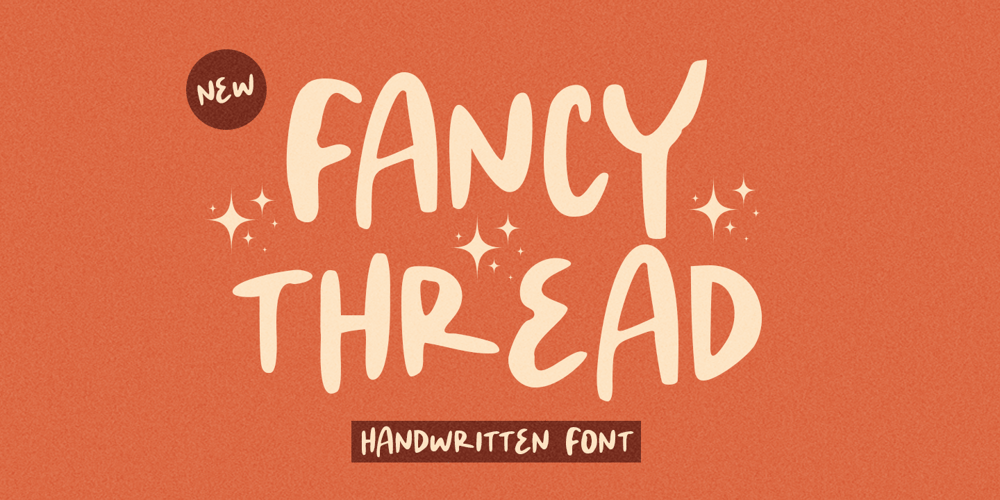
Fancy Thread
Fancy Thread font
Fancy Thread Font Family was designed by Prio Nurokhim Aji and published by Prioritype. Fancy Thread contains 1 styles and family package options. Fancy Thread – Handwritten Font“Fancy Thread” is a whimsical handwritten font that captures a delightful, playful spirit. Perfect for quotes, posters, and branding, its charming strokes bring a unique personality to any design. This versatile font effortlessly adds a touch of creativity and fun, making it ideal for eye-catching and memorable projects.Features: Uppercase, Lowercase, Numeral, Punctuation & Multilingual.Multilingual contained: Afrikaans, Albanian, Asu, Basque, Bemba, Bena, Breton, Catalan, Chiga, Cornish, Danish, Dutch, English, Estonian, Filipino, Finnish, French, Friulian, Galician, German, Gusii, Indonesian, Irish, Italian, Kabuverdianu, Kalenjin, Kinyarwanda, Luo, Luxembourgish, Luyia, Machame, Makhuwa-Meetto, Makonde, Malagasy, Manx, Morisyen, North Ndebele, Norwegian Bokmål, Norwegian Nynorsk, Nyankole, Oromo, Portuguese, Quechua, Romansh, Rombo, Rundi, Rwa, Samburu, Sango, Sangu, Scottish Gaelic, Sena, Shambala, Shona, Soga, Somali, Spanish, Swahili, Swedish, Swiss German, Taita, Teso, Uzbek (Latin), Volapük, Vunjo, Zulu.Thanks!